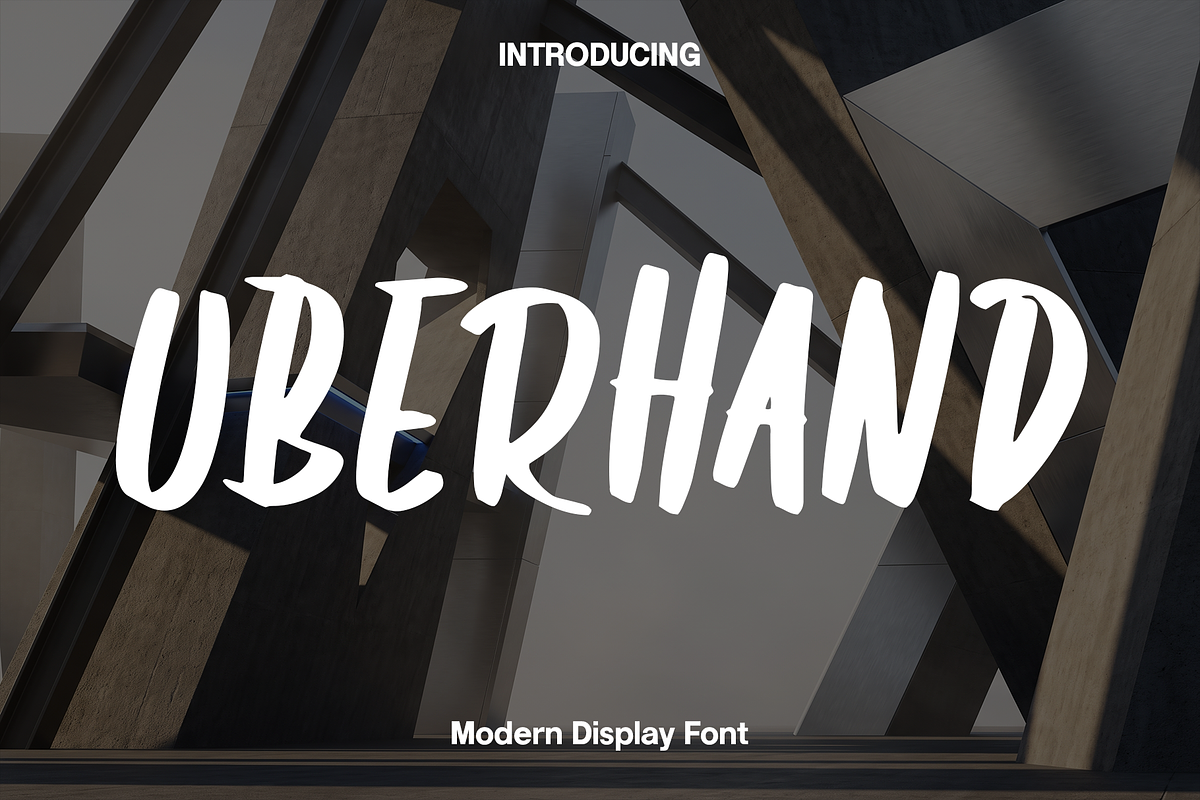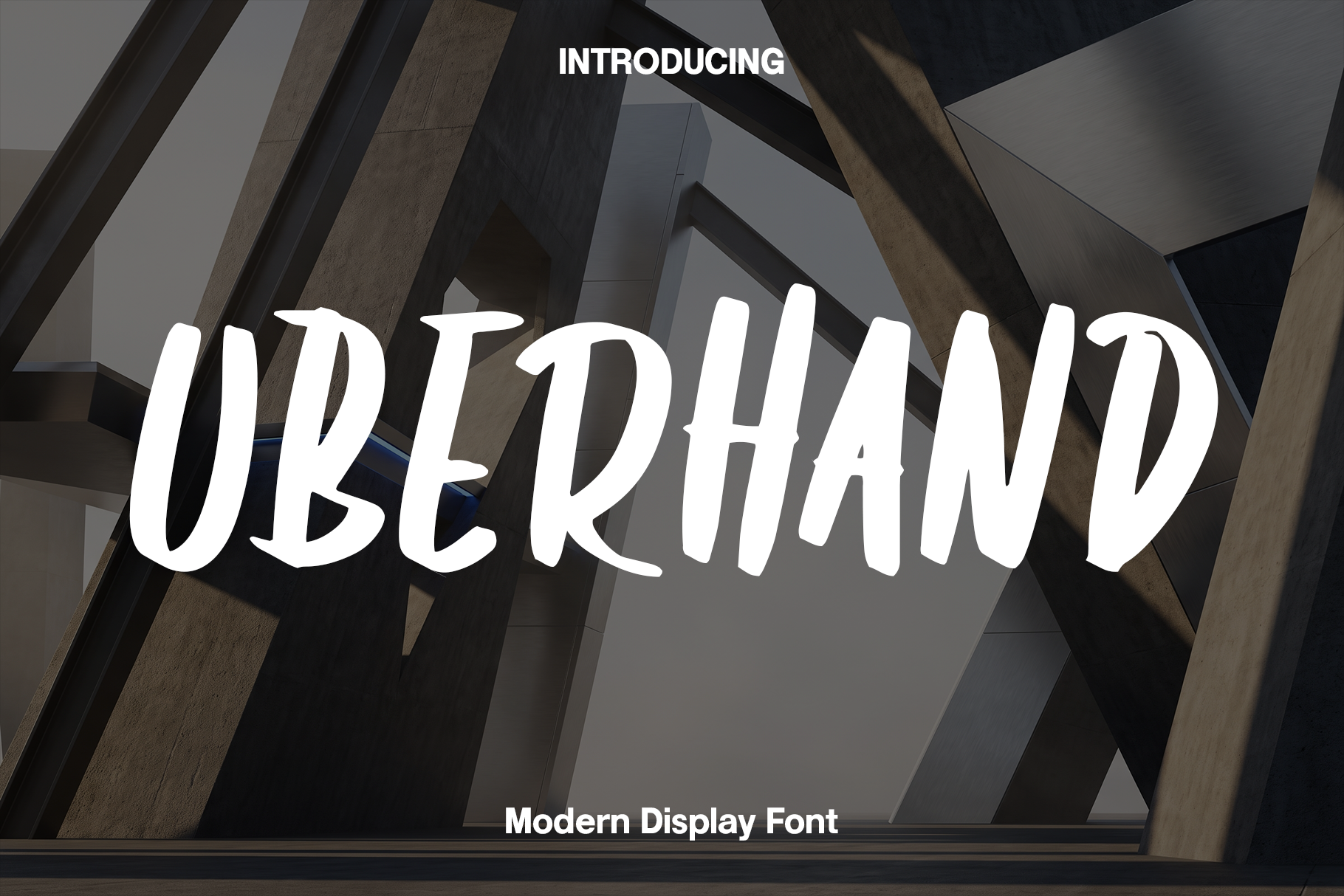
Uberhand - Modern Display Font
Uberhand is a bold modern display font designed to bring power, movement, and contemporary style to your creative projects. Inspired by modern architecture, urban graphics, and clean geometric typography, Uberhand features striking cutout details, bold letterforms, and a dynamic slanted structure that creates an unmistakable sense of speed and energy. Every character is carefully crafted to deliver exceptional readability while maintaining a unique visual identity that stands out in both print and digital media.
Perfect for poster titles, menu flyers, product packaging, logos, monograms, branding, apparel, product labels, editorial layouts, advertising campaigns, social media graphics, YouTube thumbnails, and promotional materials, Uberhand delivers a bold and professional look for any design. Its modern style makes it an excellent choice for businesses, creative agencies, lifestyle brands, and designers seeking typography with a strong visual impact.
Whether you're creating a memorable brand identity, designing premium packaging, producing eye-catching marketing materials, or developing impactful headlines, Uberhand provides the flexibility and confidence needed to elevate your work. Its balanced proportions and dynamic appearance ensure every word communicates strength, originality, and modern sophistication.
With its contemporary character and premium craftsmanship, Uberhand transforms ordinary typography into powerful visual statements that capture attention and leave a lasting impression. It is an essential display font for designers looking to create bold, stylish, and modern typography for today's creative projects.
Uberhand Font Features: • Modern display style • Bold letterforms with unique cutout details • Dynamic slanted design • Uppercase and lowercase characters • Numbers and punctuation • Perfect for posters, menu flyers, packaging, logos, monograms, branding, labels, apparel, social media, and advertising • Suitable for both print and digital projects • OTF, TTF, and WOFF file formats included